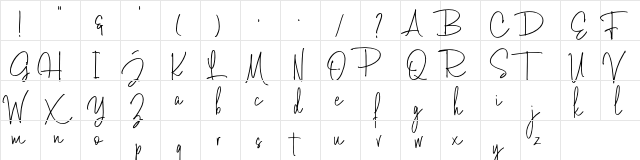
Tosca Beauty Demo Regular Font Preview
Tosca Beauty Demo Regular
Tosca Beauty Demo Regular Font Details
| Foundry | Runsell Studio |
| Designer | Saeful Maarif |
Design Context for Tosca Beauty Demo Typeface
Tosca Beauty Demo is a composed and adaptable typeface that performs quietly and consistently across a wide range of design contexts.